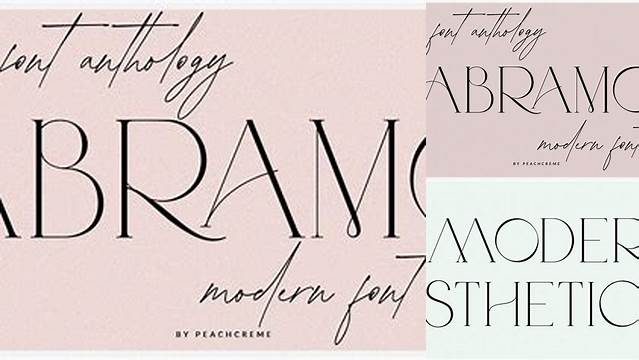
Hey guys! Are you on the hunt for a font that screams elegance and professionalism? Look no further! The Abramo Serif font is here to elevate your design game. In this article, we're diving deep into everything you need to know about this fantastic typeface, including how to get your hands on a free TTF download. So, buckle up and let's explore the world of Abramo Serif!
What is Abramo Serif Font?
Abramo Serif is more than just a font; it's a statement. This typeface exudes sophistication and classic charm, making it a perfect choice for a wide range of projects. From branding and editorial design to web content and invitations, Abramo Serif adds a touch of class that's hard to ignore. The font family typically includes various weights and styles, such as regular, italic, bold, and bold italic, offering you the flexibility to create visually stunning designs. Serif fonts like Abramo are known for their small decorative strokes (serifs) at the end of the letters, which enhance readability and give a formal appearance. If you're aiming for a look that's both refined and approachable, Abramo Serif might just be your new best friend.
Abramo Serif font is a versatile and elegant typeface that can significantly enhance the visual appeal of any design project. Its classic serif characteristics provide a sense of tradition and sophistication, making it suitable for both digital and print media. The font family often includes a range of weights and styles, such as regular, italic, bold, and bold italic, offering designers the flexibility to create diverse and visually engaging layouts. The serifs, which are the small decorative strokes at the end of the letterforms, contribute to its readability and formal appearance, making it an excellent choice for body text in books, magazines, and articles. Moreover, its refined letterforms make it ideal for branding materials, such as logos, letterheads, and business cards, where a touch of elegance is desired. The balanced proportions and clean lines of Abramo Serif ensure that it remains legible and aesthetically pleasing across various sizes and resolutions, whether displayed on a screen or printed on paper. Designers often choose Abramo Serif for projects that require a timeless and professional look, such as academic publications, legal documents, and high-end marketing collateral. The font’s inherent versatility allows it to seamlessly integrate into a variety of design styles, from minimalist and modern to traditional and ornate. Its ability to convey both authority and warmth makes it a valuable asset in any designer’s toolkit, enabling the creation of designs that are not only visually appealing but also highly effective in communicating their intended message. When selecting a font, considering the overall tone and purpose of the project is crucial, and Abramo Serif consistently proves to be a reliable choice for those seeking to achieve a sophisticated and polished aesthetic.
Key Features of Abramo Serif
So, what makes Abramo Serif stand out from the crowd? Let's dive into its key features:
- Elegance and Sophistication: The serifs give it a classic, refined look.
- Versatility: Works well in both headings and body text.
- Readability: Designed for comfortable reading, even in longer texts.
- Multiple Weights and Styles: Offers flexibility for various design needs.
- Professional Appeal: Perfect for projects that need a touch of class.
When you're looking for a font, it's essential to consider the features that will best suit your project's needs. Abramo Serif's elegance and sophistication make it an excellent choice for designs that aim to convey professionalism and refinement. The serifs, those small decorative strokes at the end of each letter, not only enhance its classic appearance but also aid in readability, making it a great option for extended text passages. This versatility means you can use Abramo Serif effectively in both headings and body text, ensuring a cohesive and polished look across your design. The availability of multiple weights and styles, such as regular, italic, bold, and bold italic, further adds to its adaptability, allowing you to create visual hierarchy and emphasis within your text. Whether you're designing a website, a brochure, or a book, the ability to vary the font's weight and style gives you greater control over the final aesthetic. Moreover, Abramo Serif's professional appeal makes it particularly well-suited for projects where a touch of class is required, such as business cards, letterheads, and formal invitations. Its clean lines and balanced proportions ensure that it remains legible and visually pleasing across various sizes and resolutions. The font’s design also takes into account the importance of clear letter spacing and kerning, which contributes to a smooth reading experience. This attention to detail is what sets Abramo Serif apart and makes it a reliable choice for designers seeking a typeface that combines elegance with practicality. In essence, Abramo Serif is a font that not only looks good but also performs exceptionally well in a variety of applications, making it a valuable addition to any designer’s toolkit. Its timeless quality ensures that it will remain a relevant and stylish choice for years to come, providing a solid foundation for projects that require a touch of sophistication and professionalism.